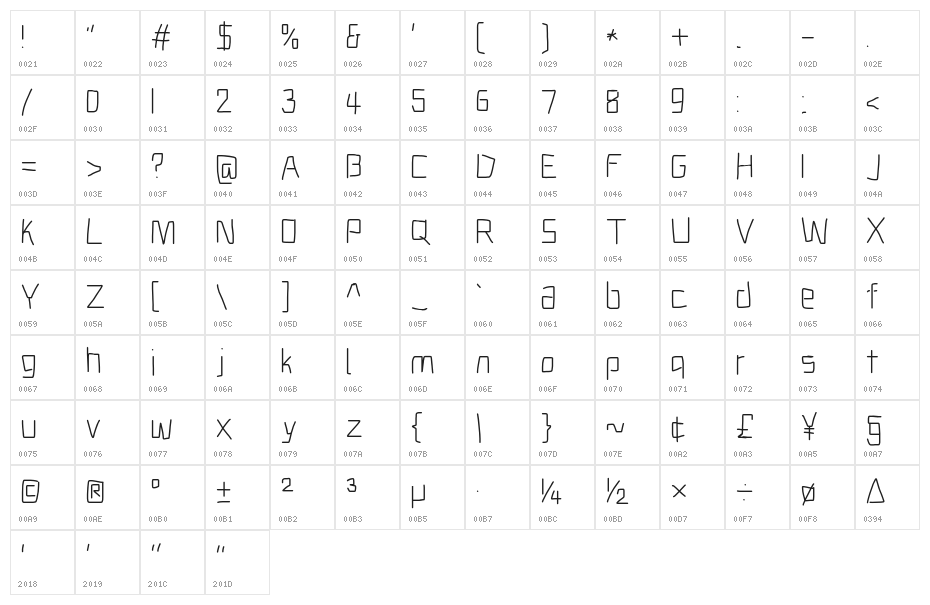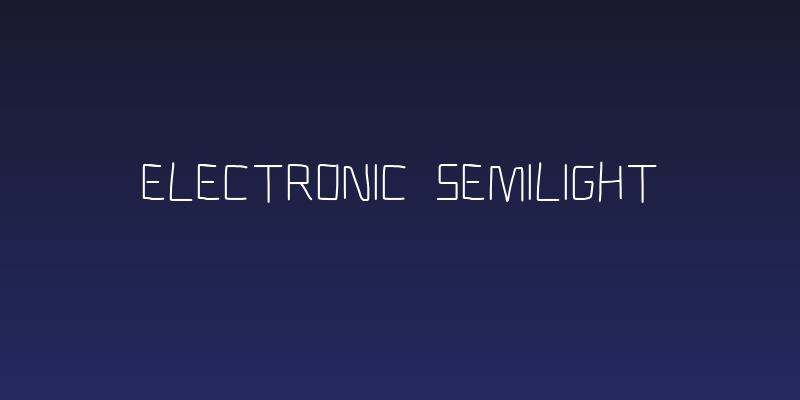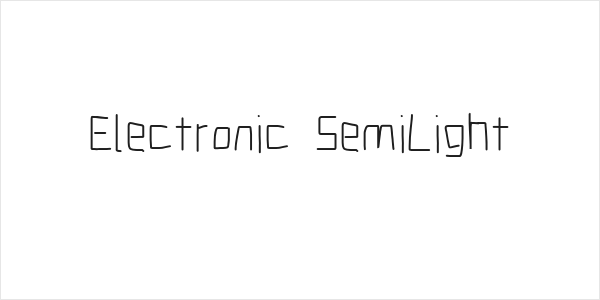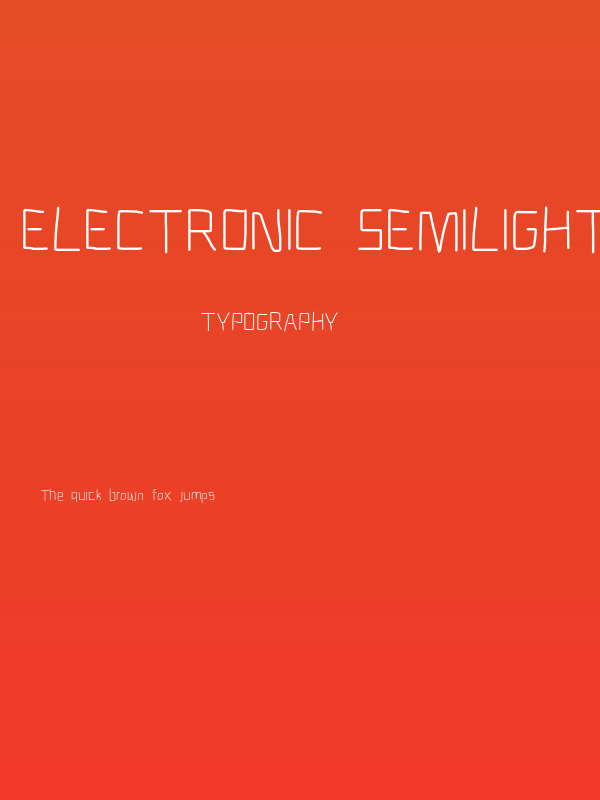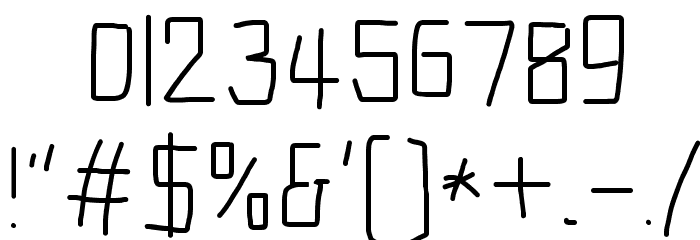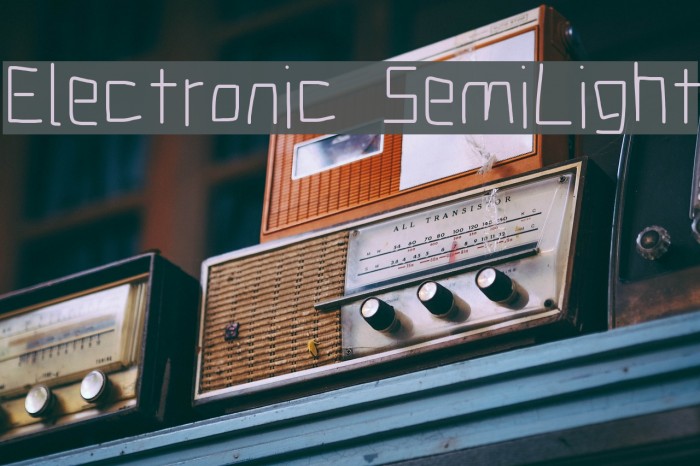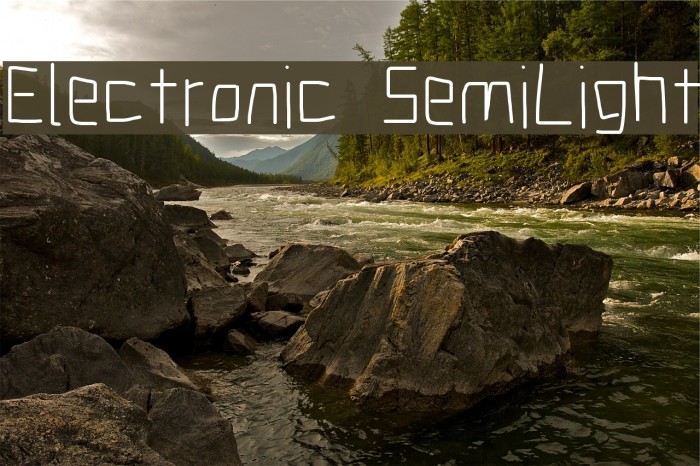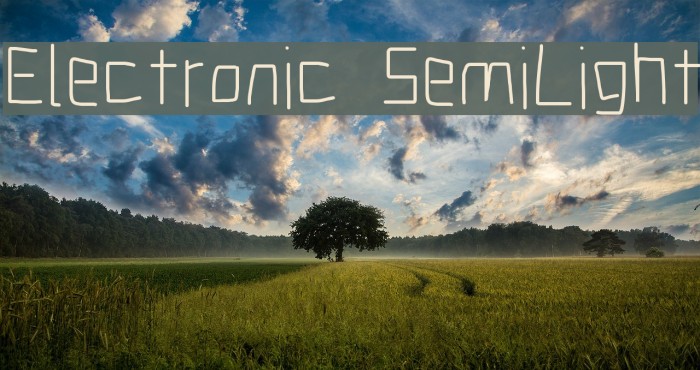
Electronic SemiLight Font
Electronic SemiLight Description
This font features a modern, geometric design with a semi-light weight, characterized by its clean and angular lines. The uppercase and lowercase letters maintain a consistent height, creating a uniform appearance. The numerals and special characters are designed with the same geometric precision, ensuring a cohesive look across all characters. The font's structure is minimalistic, with a focus on clarity and readability, making it suitable for digital displays and interfaces. Its unique style gives it a futuristic feel, ideal for projects that require a contemporary and tech-savvy aesthetic.
| Use Case | Headlines, Digital displays, Tech branding |
| Proposed Projects | Ideal for digital interfaces, tech branding, modern posters, and futuristic designs. |